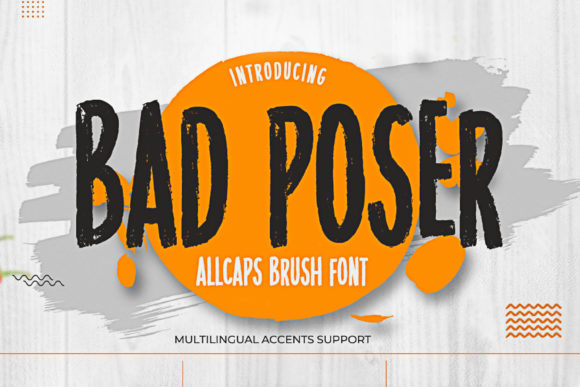
Welcome to the world of Bad Poser, a font that exudes urban flair and unleashes your creative spirit. This display font, crafted by the visionary minds at Gassstype Studio, is not just a collection of letters; it's a gateway to a world of boundless expression.
Bad Poser is more than just a font; it's an attitude, a reflection of your inner rebel, a style that commands attention. Its carefully crafted strokes, reminiscent of brushed lettering on city walls, evoke a sense of raw energy and authenticity. With Bad Poser, you'll capture the essence of urban culture and make a bold statement wherever you use it.
Visualize your designs transformed with Bad Poser's captivating presence. Picture your t-shirts adorned with edgy slogans, your sportswear radiating athletic prowess, your logos demanding recognition, your advertisements captivating audiences, and your clothing line oozing with urban chic. Bad Poser is the ultimate tool to bring your creative visions to life, leaving an indelible mark on the world.
Step into the spotlight with Bad Poser and embrace your unique style. Let your Instagram bio radiate personality, your social media posts command attention, and your online presence reflect your bold and confident persona. With Bad Poser, you'll turn heads and leave a lasting impression wherever you go.
Don't let your creativity be confined by ordinary fonts. Unleash the Bad Poser within you and watch as your designs transcend the boundaries of convention. This font is your passport to a world of urban authenticity, where your ideas take center stage and your style becomes a force to be reckoned with.